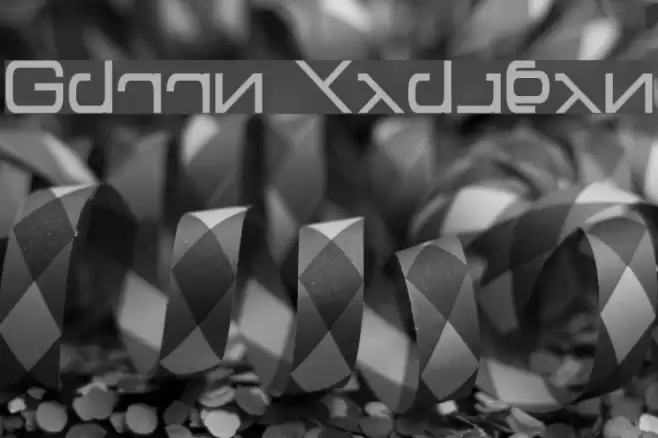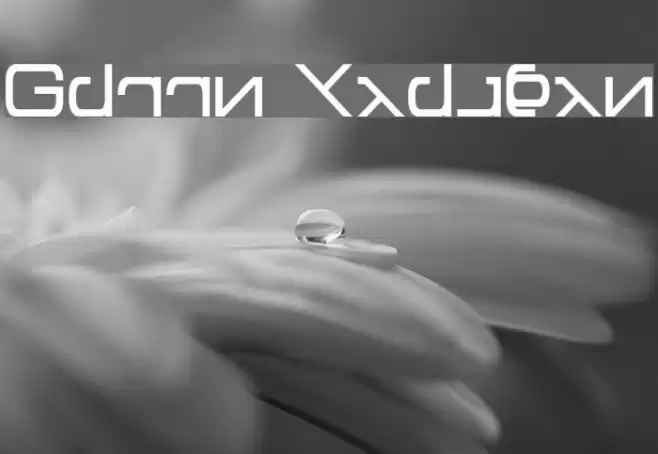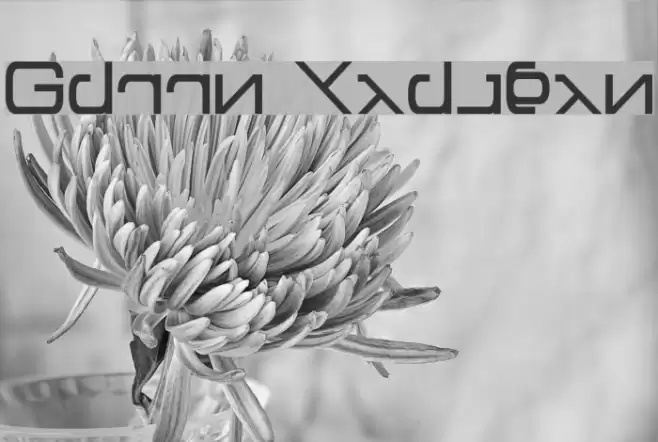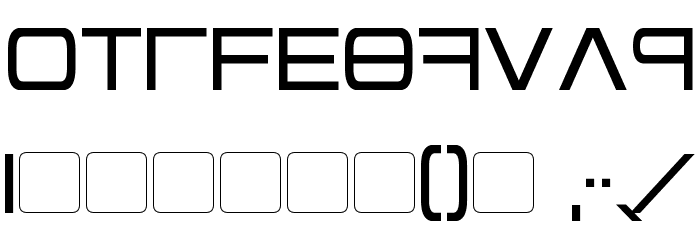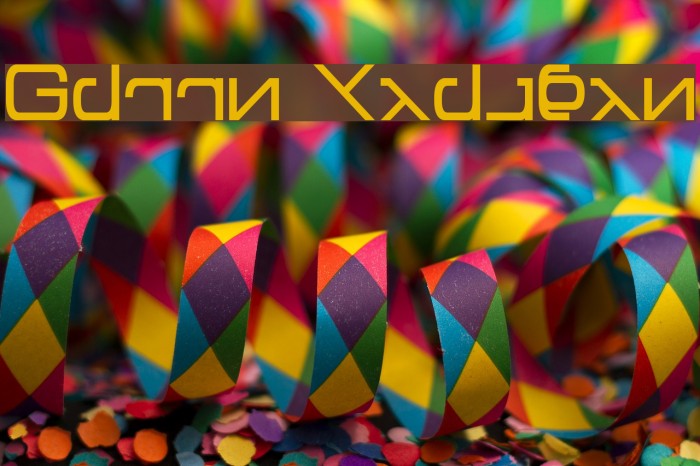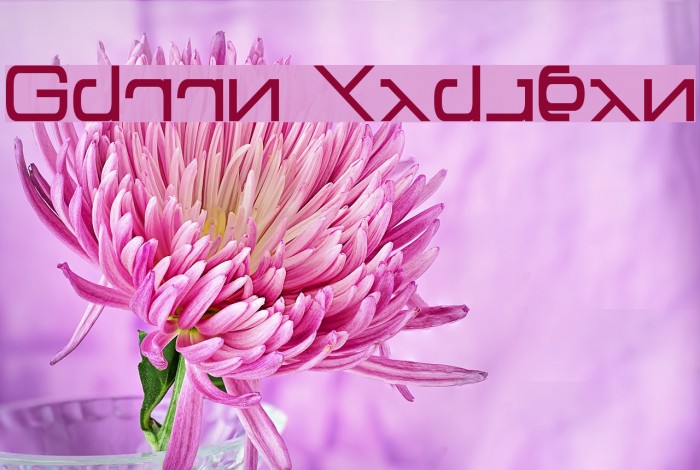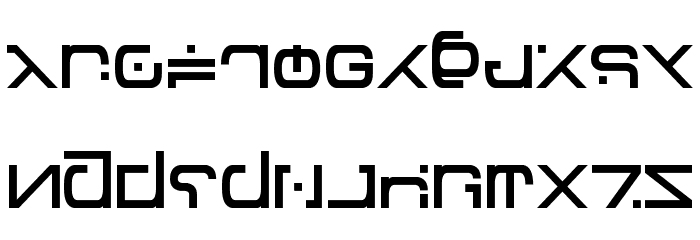
Green Martian Font
Green Martian Description
This font features a futuristic and alien-like design, characterized by its geometric shapes and angular forms. The characters are composed of bold, straight lines with sharp angles, giving it a distinctly modern and otherworldly appearance. The font includes a mix of uppercase and lowercase letters, numbers, and a selection of special characters. Its unique style makes it stand out, with each letterform appearing almost like a symbol or code from a sci-fi universe. The overall design is clean and minimalistic, yet it carries a strong visual impact due to its unconventional shapes and structure.
A futuristic, geometric font with an alien-like appearance from Uncategorized fonts.
- Proposed Projects: Ideal for sci-fi themed projects, video game interfaces, movie posters, or any design requiring a futuristic touch.
- Overall Style: Futuristic